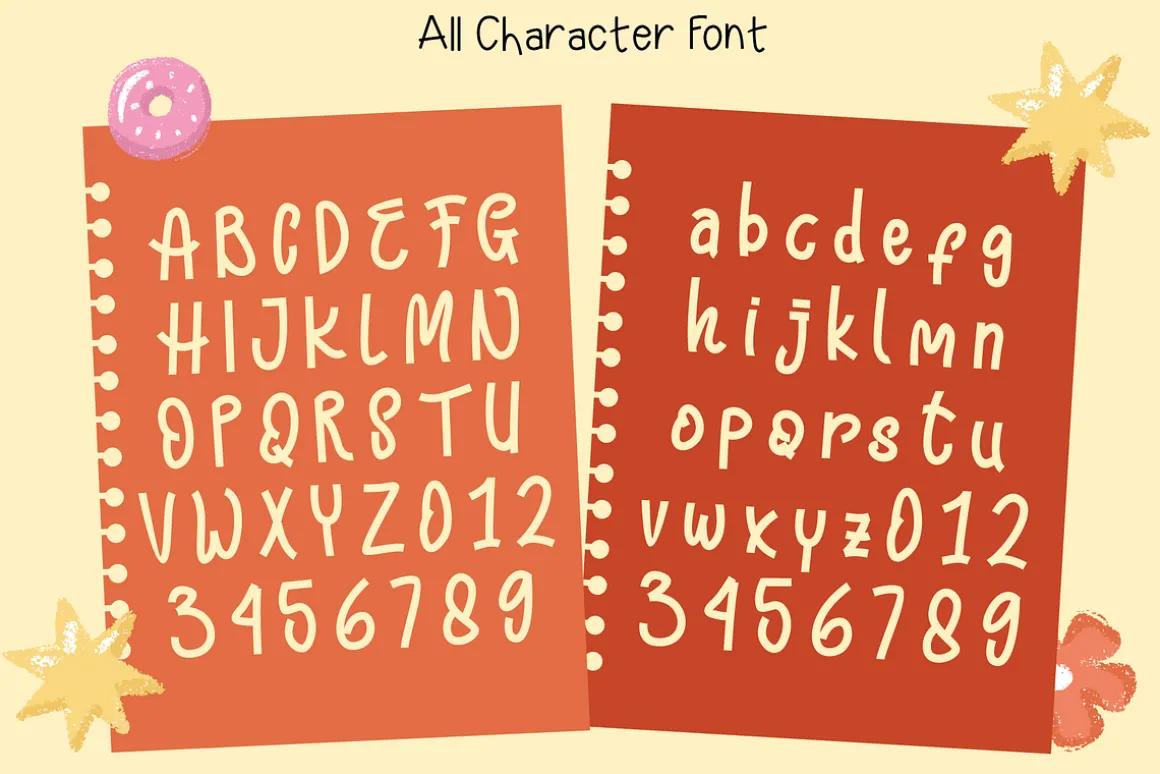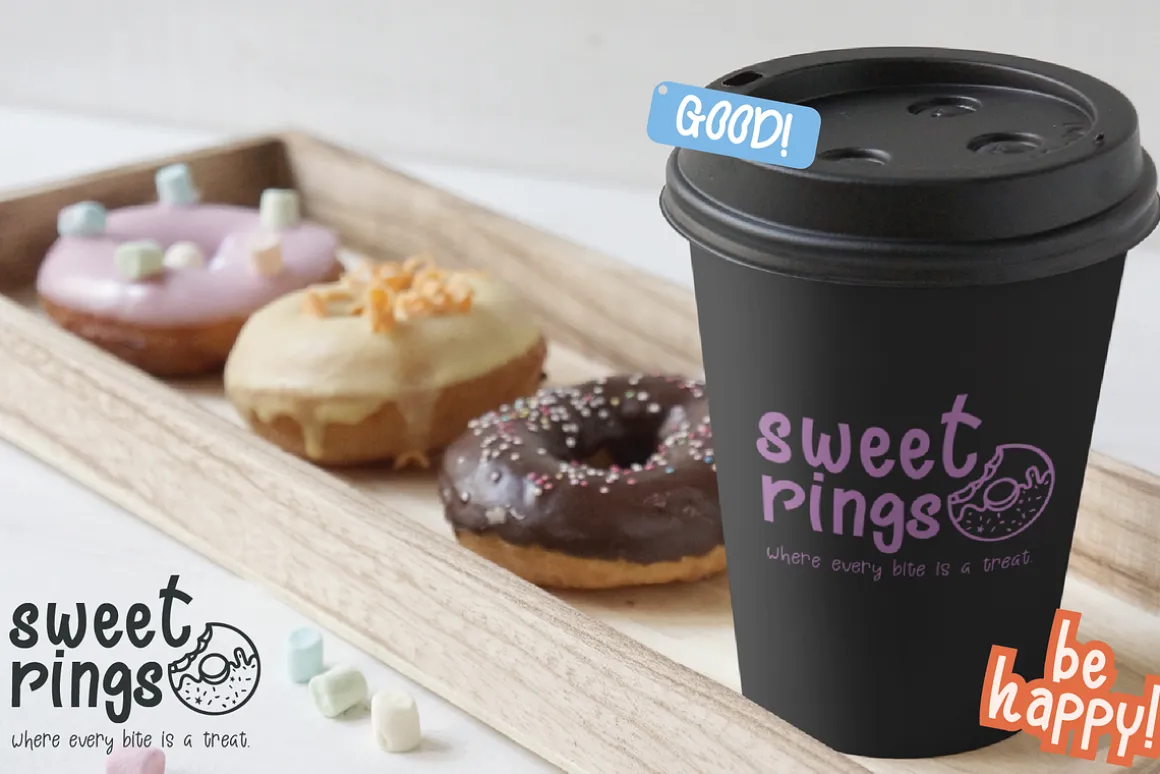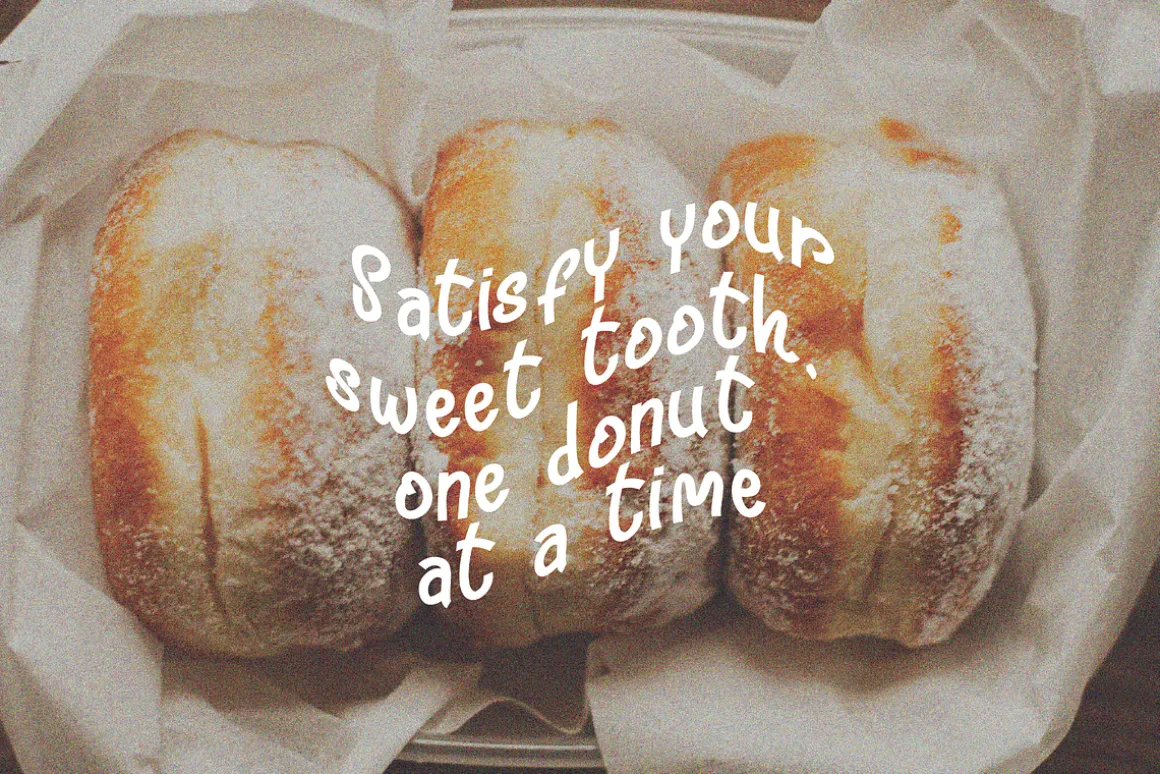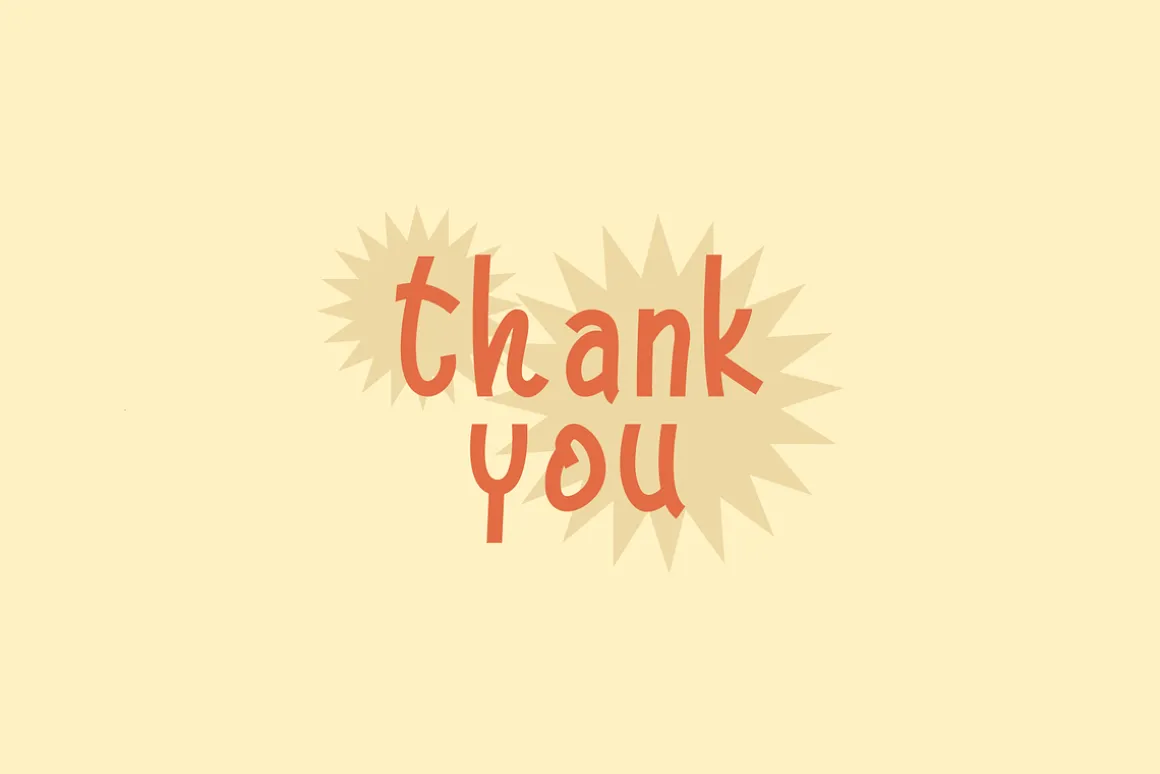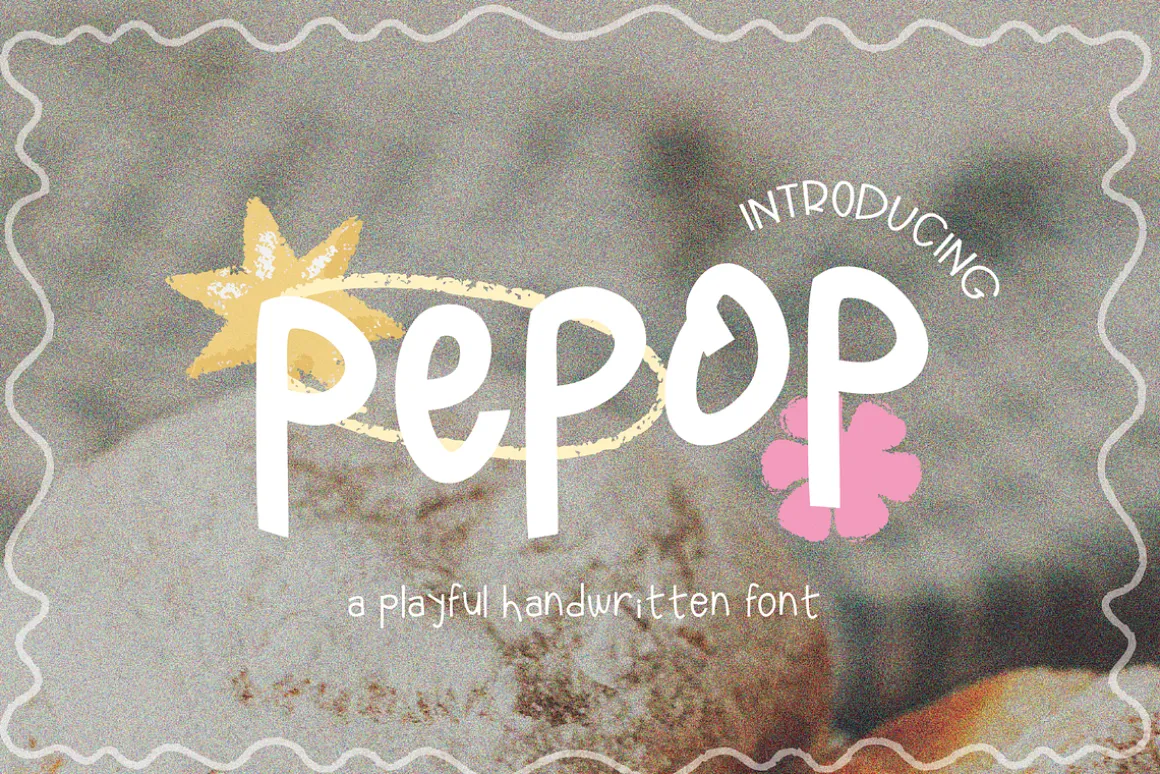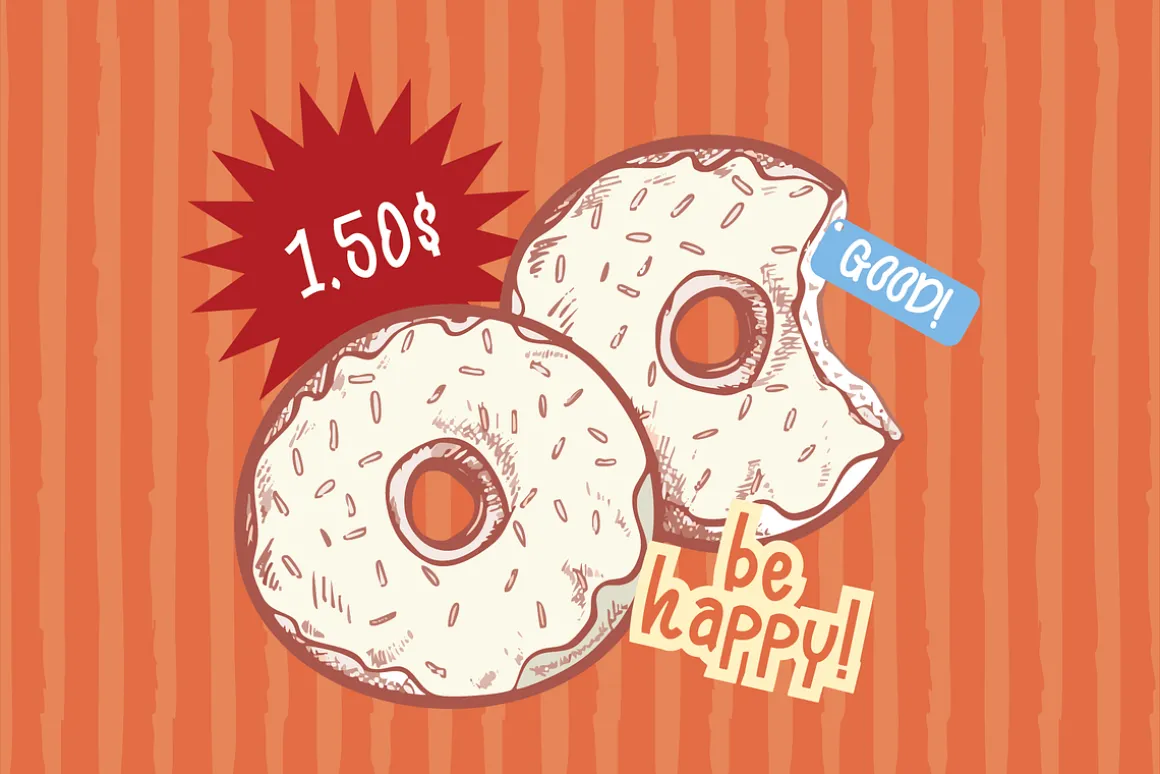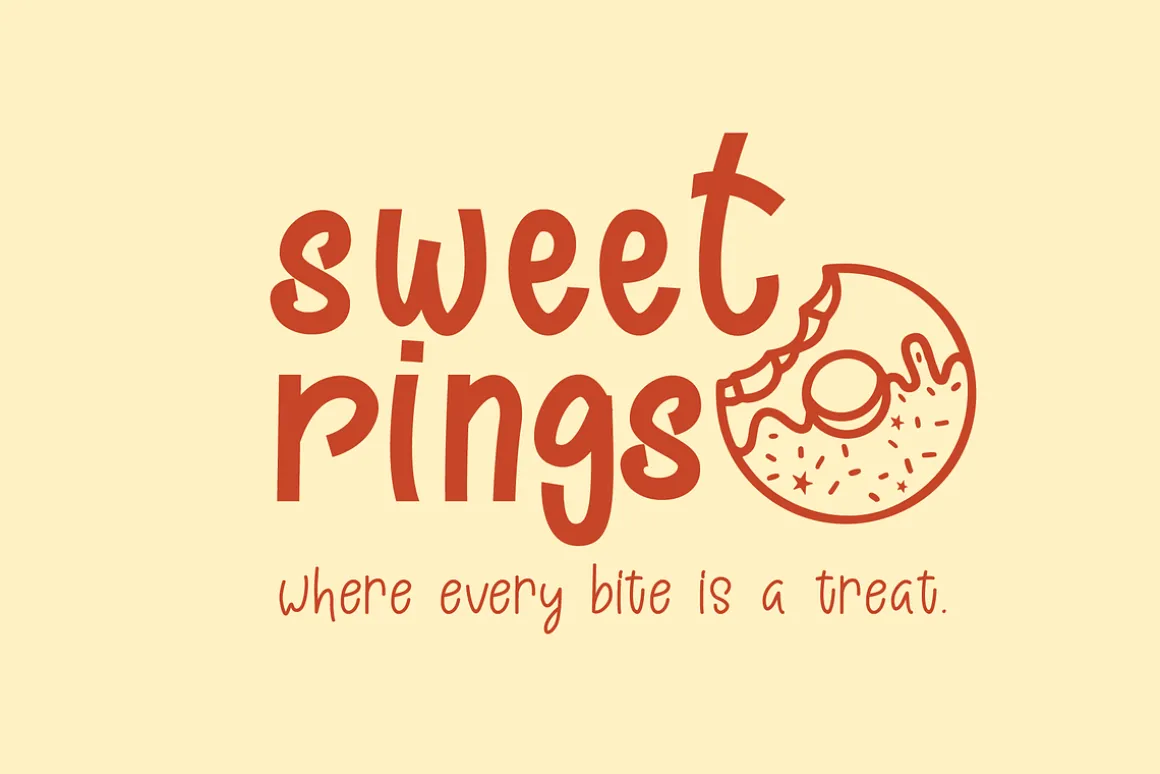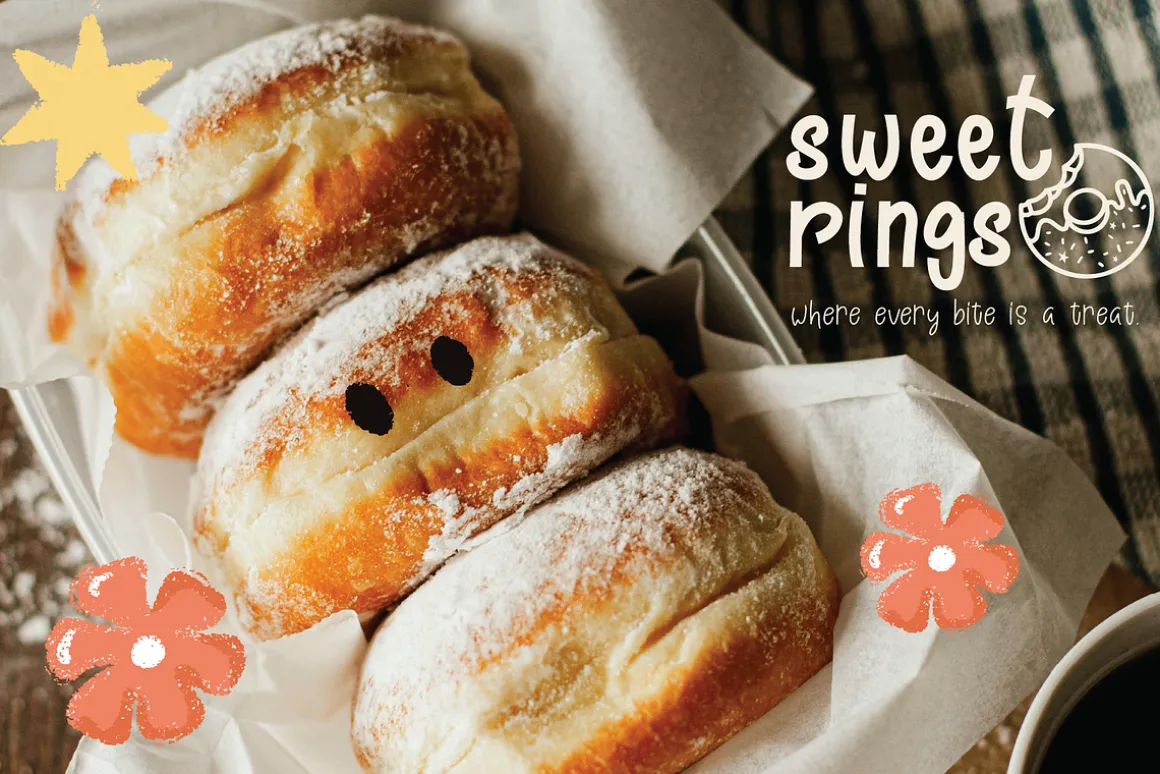
Pepop is a new font with a playful handwritten display concept. It is designed to add a unique and fun touch to your texts with its round, cheerful letterforms. This font is versatile and works perfectly for projects that require a casual and friendly tone, such as advertisements, creative designs, or logos.